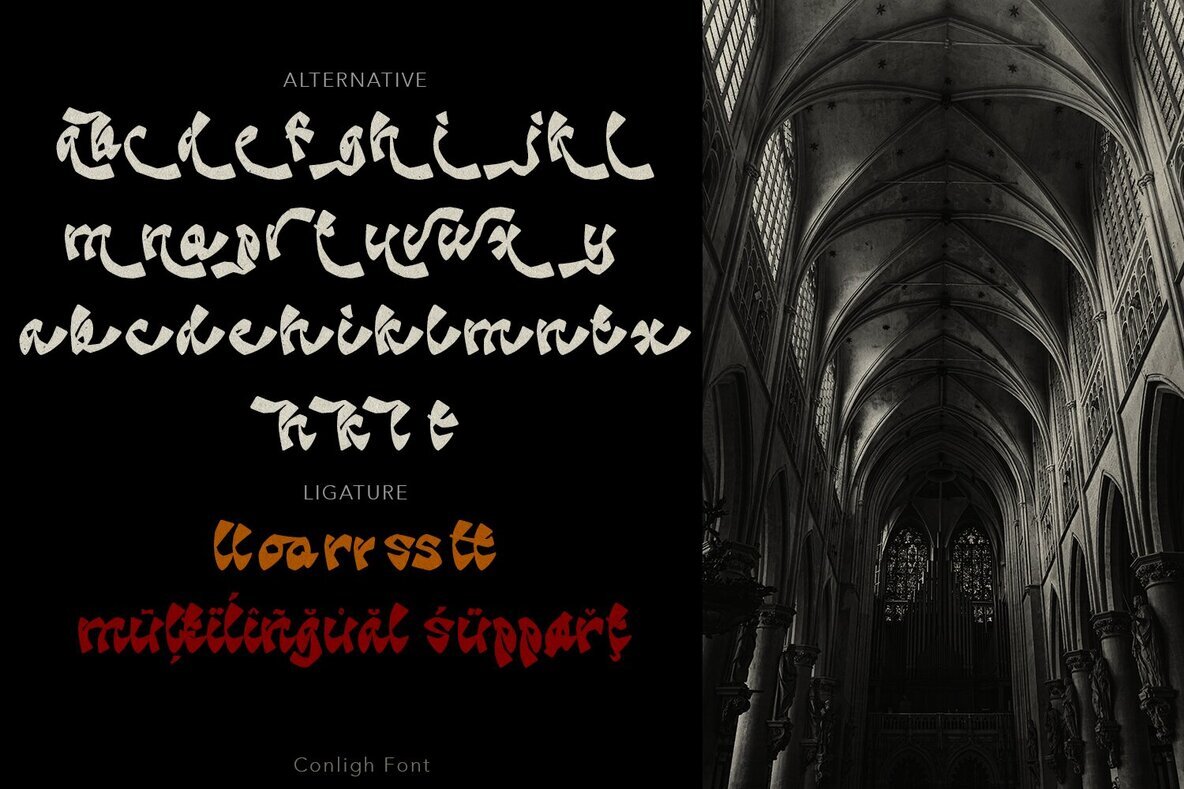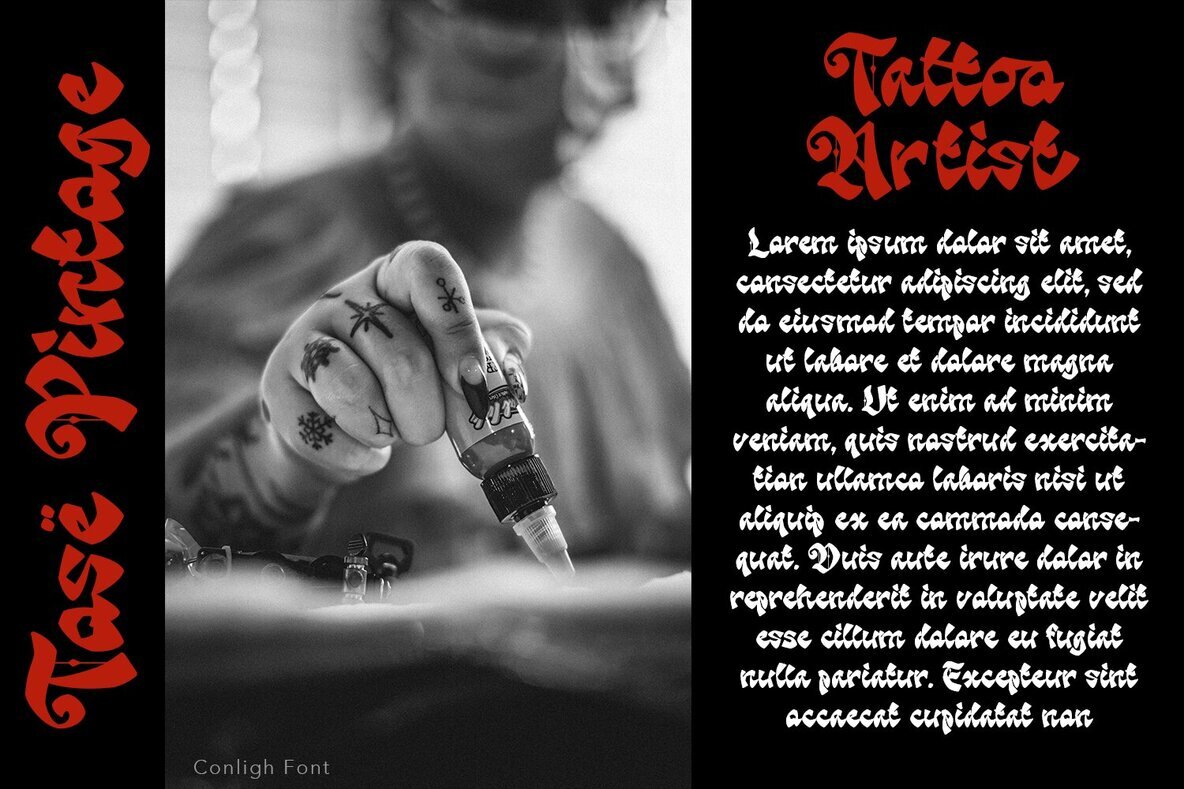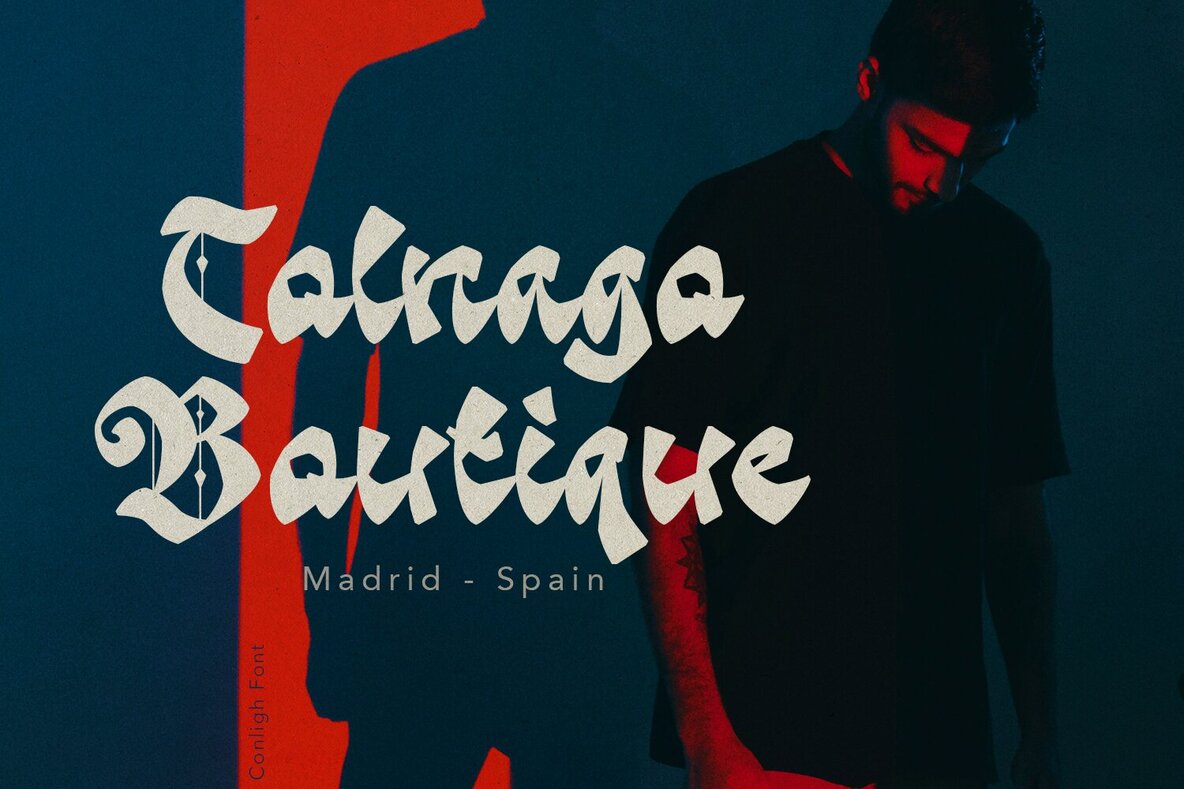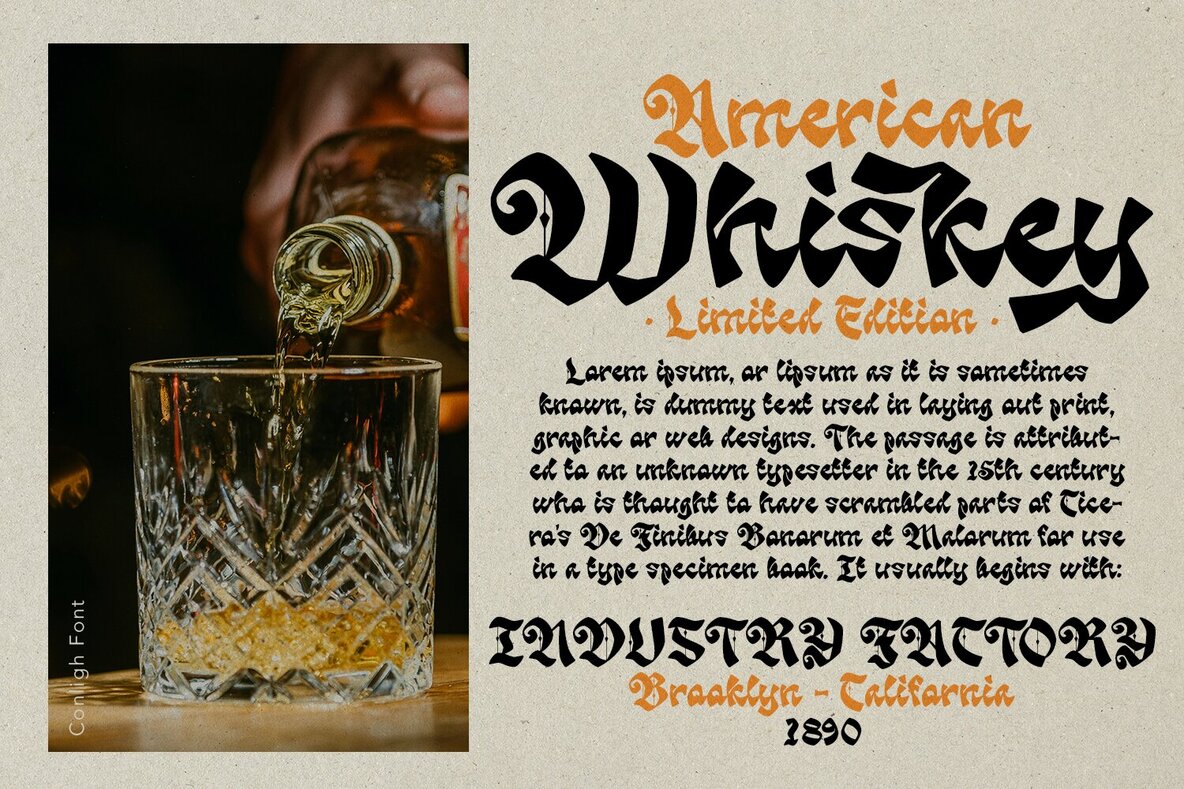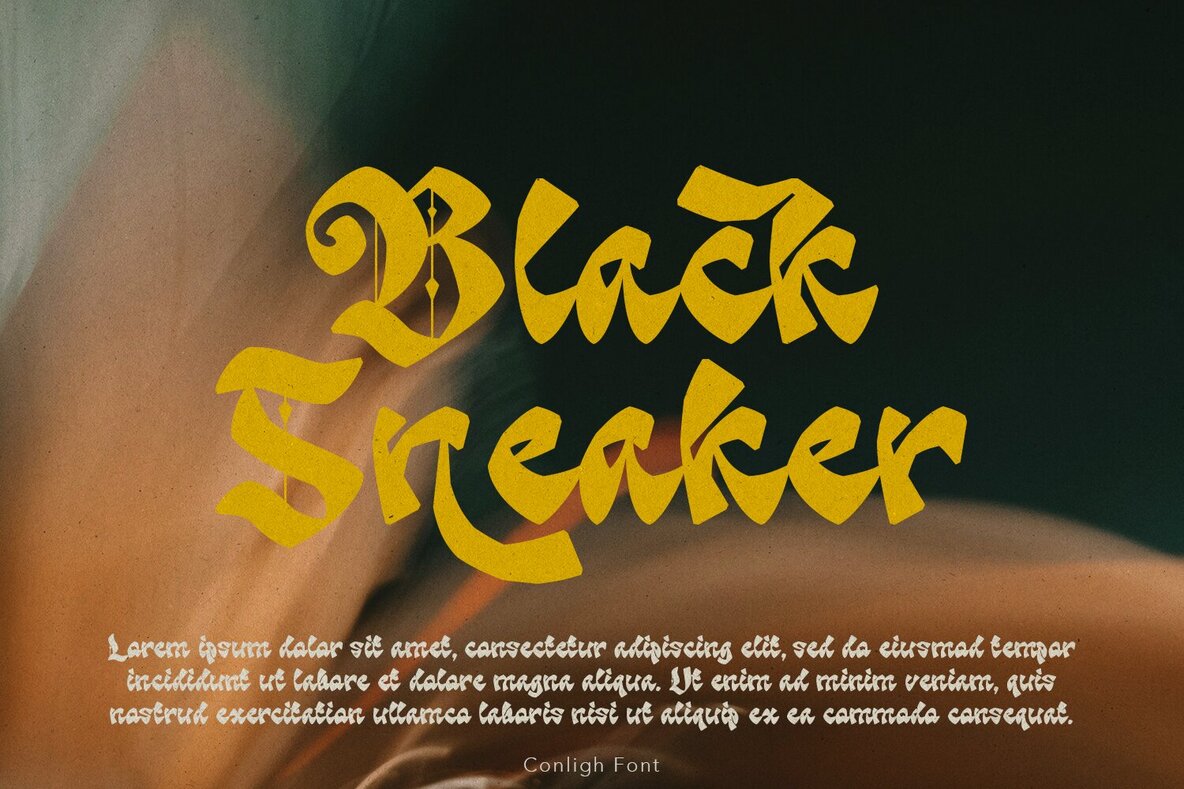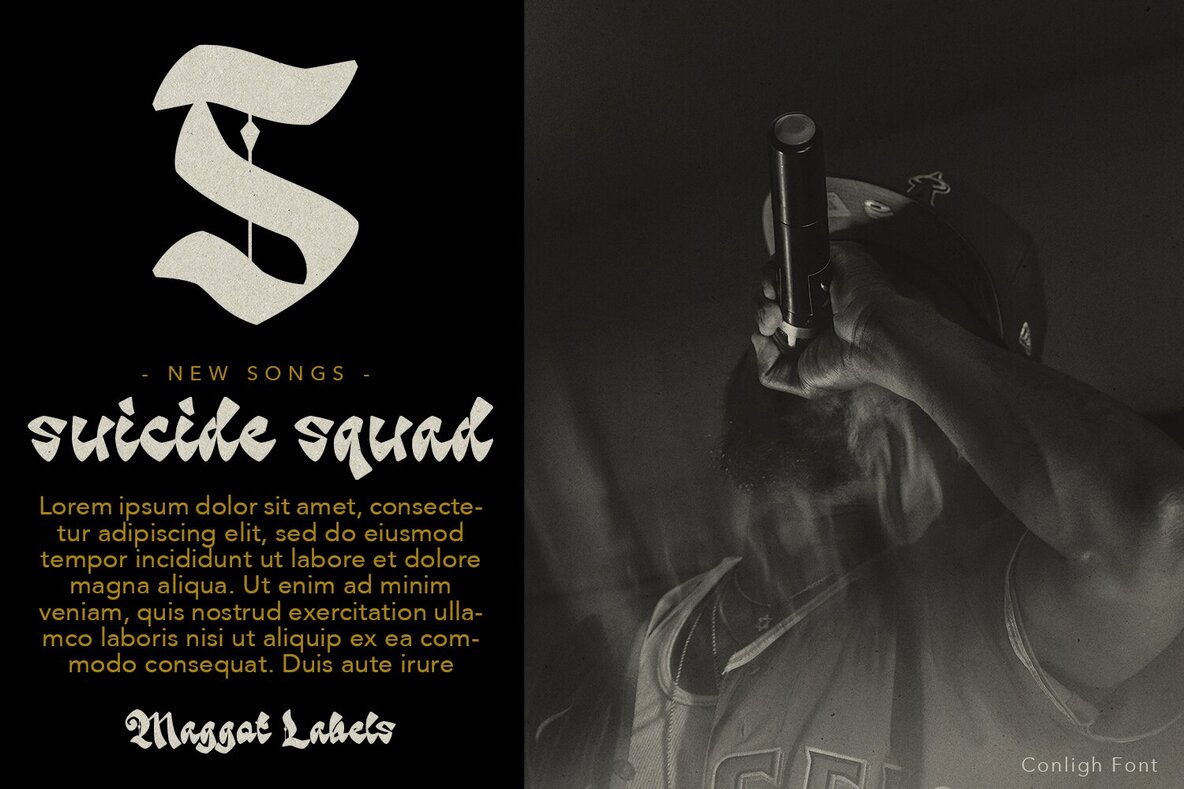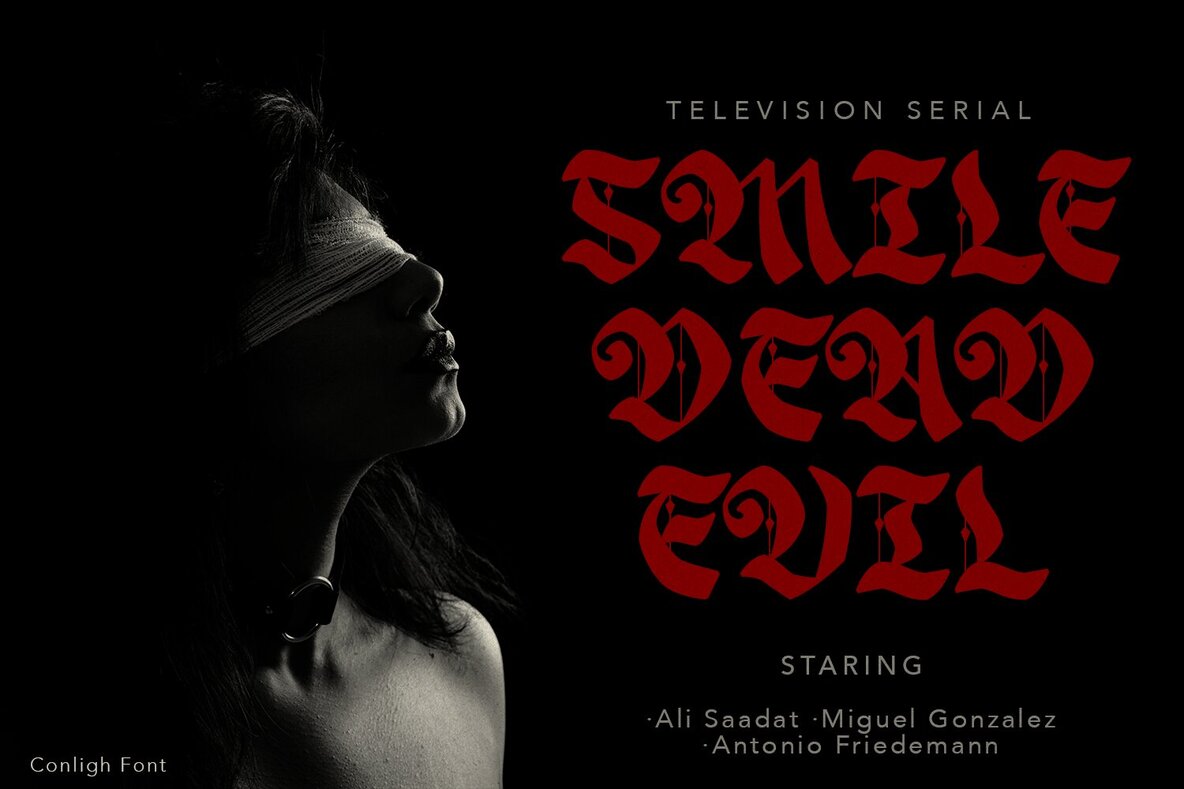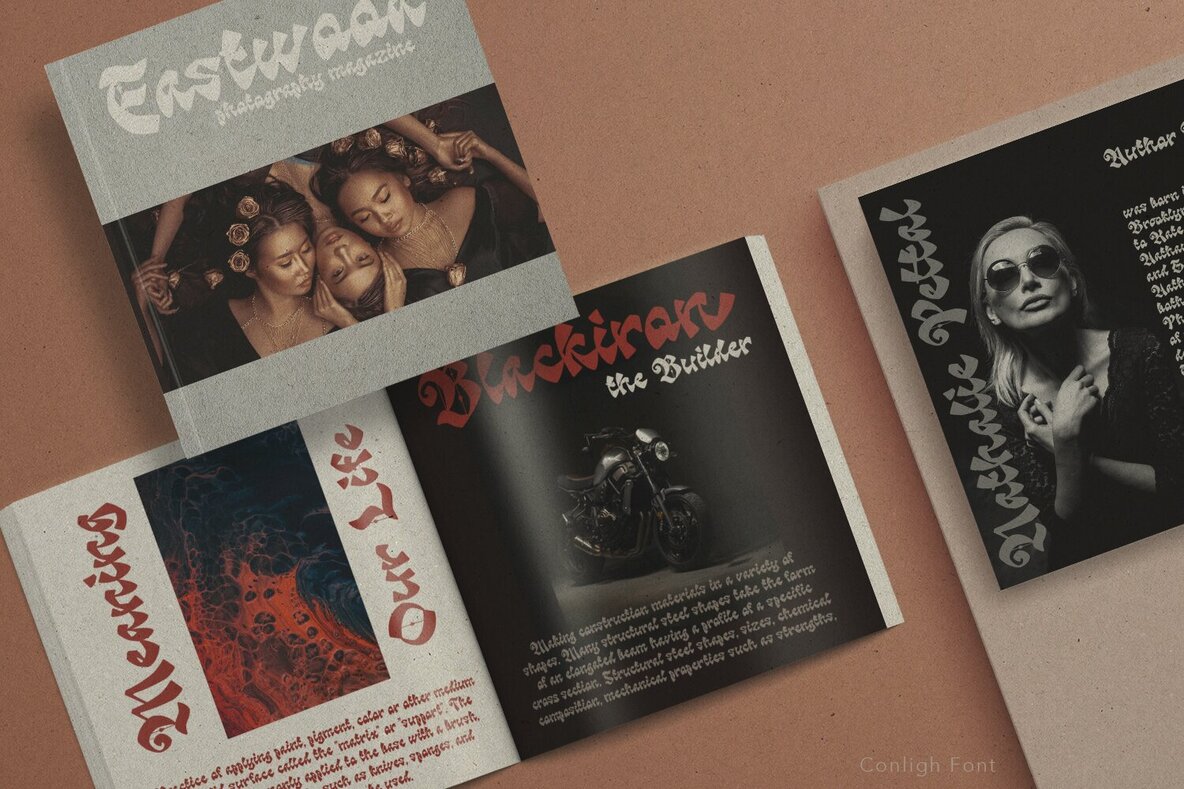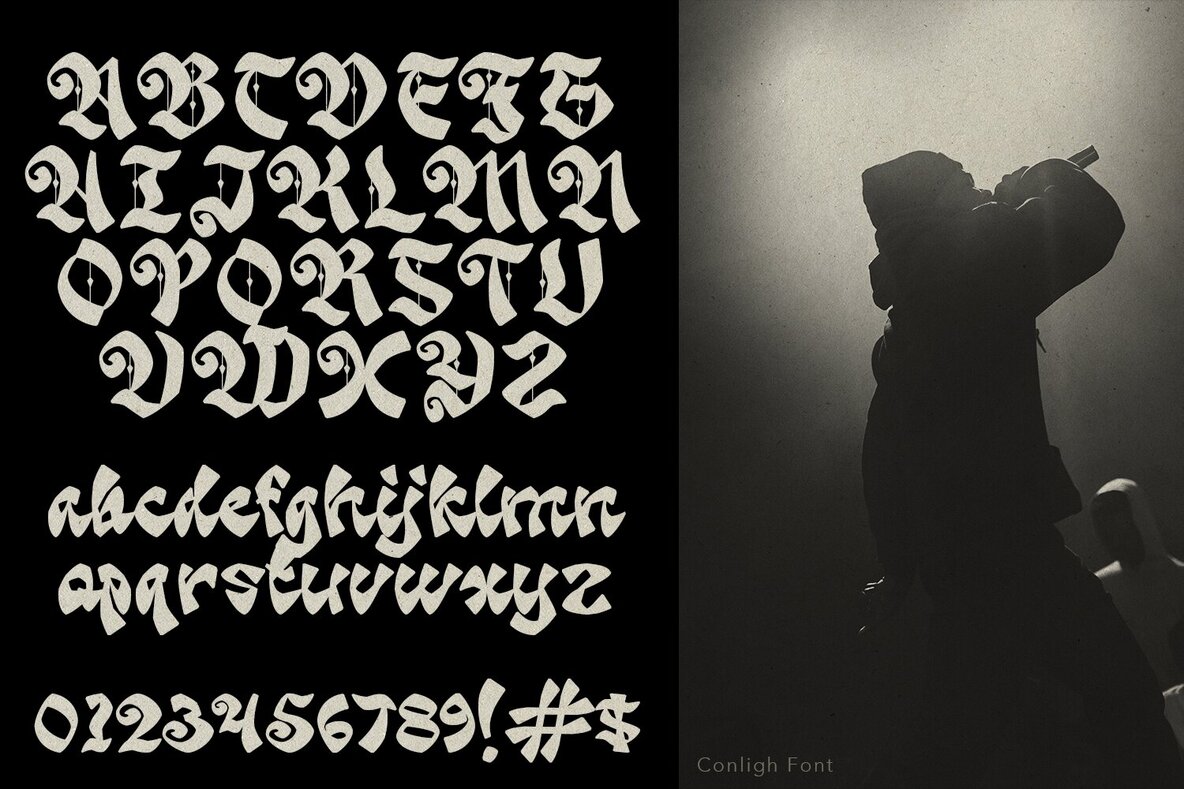
Conligh Font
Conligh is a stylish blackletter font designed to make a strong impression. It combines various letterform references to create a unique look. This font is perfect for enhancing your design projects, including:Conligh: Modern Blackletter Font
Versatile Usability